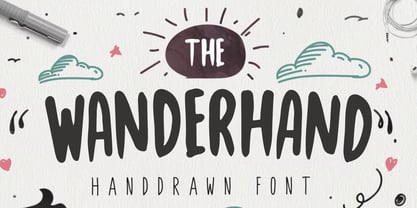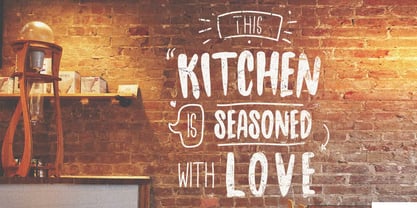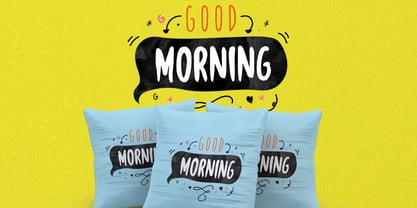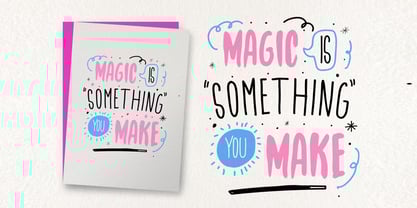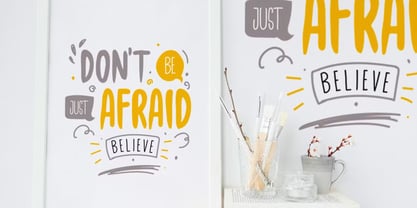
Wanderhand
by Maghrib Type
The Wanderhand Font Family was designed by Rizky Setyaludin and published by Maghrib Type. Wanderhand contains 2 styles and family package options.
Wanderhand is a charming handdrawn font that brings warmth, personality, and creativity to your design projects. Crafted with an authentic handmade touch, it perfectly combines simplicity and playfulness — making it ideal for designs that need a friendly and personal feel. This font comes in two styles – Regular and Thin, which can be used separately or paired together for a delightful visual contrast. With its organic lines and fun character shapes, Wanderhand is perfect for posters, quotes, logos, packaging, greeting cards, and social media designs. Every stroke in Wanderhand captures a natural handwritten essence, as if it were drawn directly on paper. It’s the perfect choice for designers who want to add a personal, casual, and cheerful touch to their work.